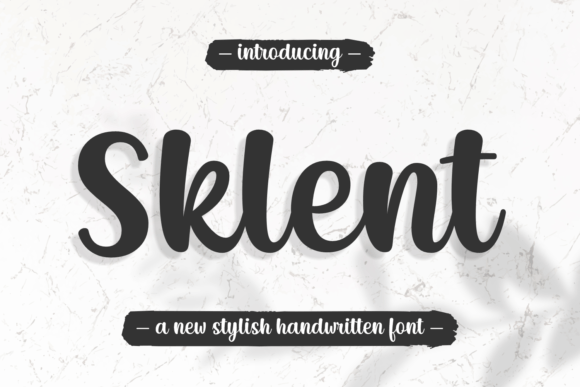
Immerse yourself in the depths of Sklent Font, a visual symphony of elegance and artistry. This breathtaking script font, crafted by the ingenious minds at Creative Fabrica Fonts, is a tribute to the beauty of handwritten typography. Sklent's cursive letters dance across your screen with a captivating rhythm, adding a touch of charm and authenticity to your creative endeavors.
Picture the allure of an exclusive invitation adorned with Sklent's enchanting characters, inviting you to an unforgettable occasion. Envision your brand's logo radiating with sophistication and distinction, thanks to Sklent's timeless appeal. Imagine your watermarks carrying an air of uniqueness, leaving an indelible impression on every viewer.
With Sklent's versatility, the possibilities are infinite. Whether you're crafting product packaging that exudes elegance or designing labels and tags with intricate details, Sklent rises to the challenge. Create greeting cards that convey heartfelt messages with a touch of artistic flair, or let Sklent's graceful strokes elevate your social media posts to new heights of engagement.
Unleash your creativity and let Sklent guide you through a world of visual enchantment. Its PUA encoding ensures effortless access to a treasure trove of glyphs and swashes, empowering you to add intricate embellishments to your designs. The possibilities are bound only by the limits of your imagination.